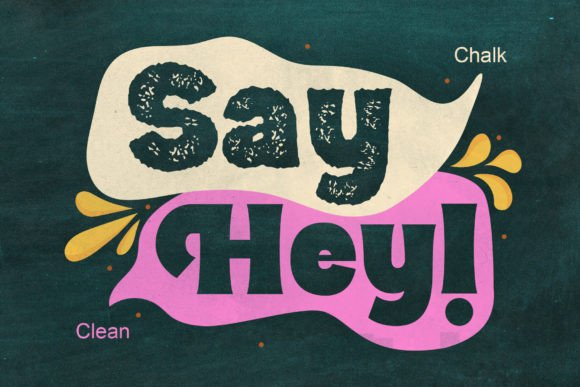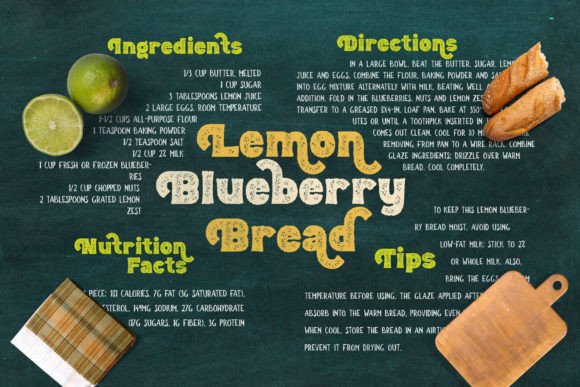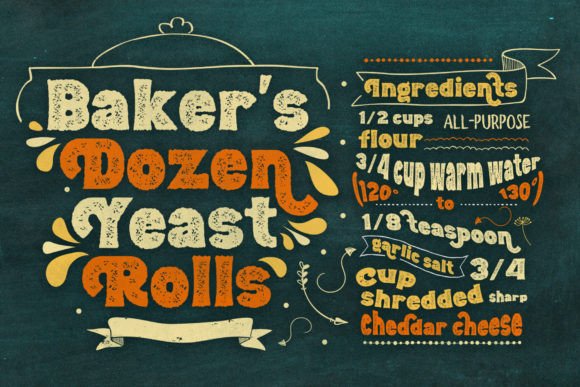
Bun Chalk Font
BunChalk is inspired by many lettering on menu board chalk cafes and bistros, and it’s specially designed for the resto that use chalk concept, menu boards.Chalk up your brand with our one-of-a-kind chalk concept! Leave your mark and get noticed with custom-branded chalk that makes a statement. Whether you’re a hip cafe, a stylish boutique, or a savvy startup, our branding chalk is the perfect way to spread the word about your business. Write inspirational quotes, menu specials, sales announcements, or just your logo all over your windows and sidewalks.Made from handmade quality chalk texture that goes on a clean and texture typeface, it’s ideal for businesses who want to grab attention and stand out from the crowd. Let potential customers know you’re there with playful, eye-catching branded chalk that gets your name seen.